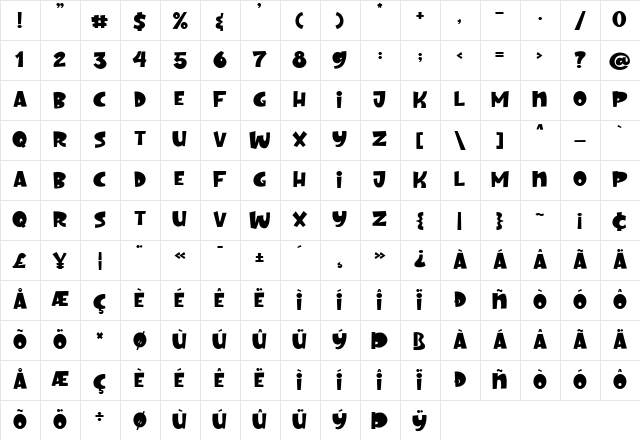
Nino Regular
| Foundry | Kong Font |
| Designer | Kong Font |
Design Context for Nino Typeface
Nino is a composed and adaptable typeface that performs quietly and consistently across a wide range of design contexts.